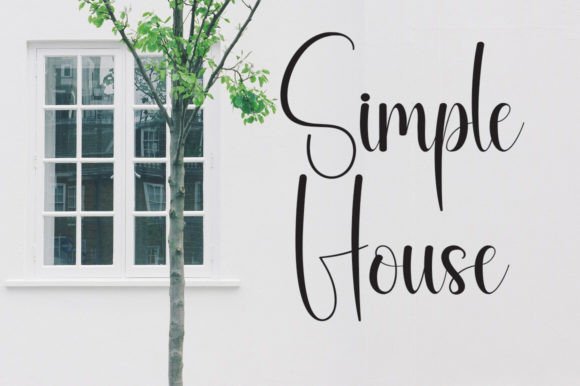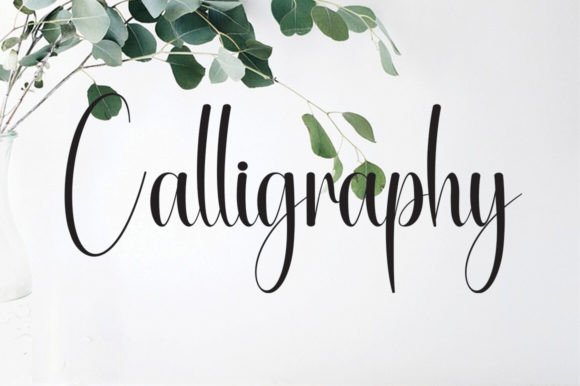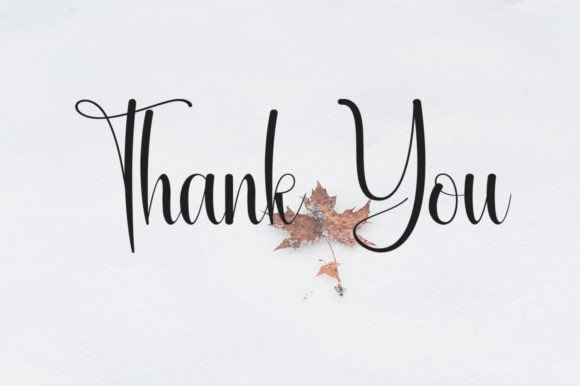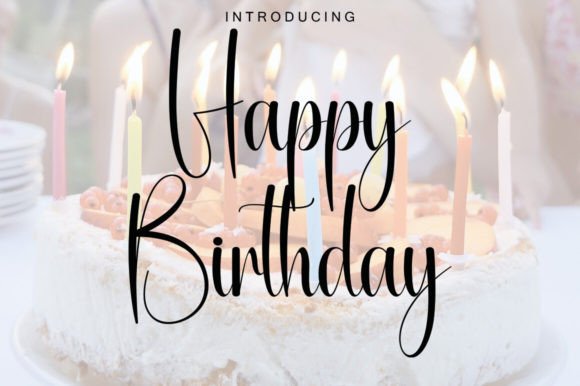
Introducing Happy Birthday Font: The Ultimate Celebration Companion for Designers and Crafters
Are you on the lookout for a font that can add a dash of joy, romance, and whimsy to your design projects? Look no further than Happy Birthday, a delightfully cursive handwritten font that is sure to make your creations stand out. Crafted with a gentle stroke, this enchanting font effortlessly exudes charm and elegance, making it the perfect choice for a wide range of design concepts.
The Charm of Happy Birthday Font
Happy Birthday Font is a warm and inviting cursive script that beautifully imparts a sweetness in every character. Its unique blend of elegance and fun makes it an ideal choice for designers and crafters who want to add a personal touch to their projects. Whether you’re creating birthday cards, party invitations, or social media graphics, Happy Birthday Font is sure to bring a smile to your audience’s faces.
Key Features of Happy Birthday Font
- Whimsical and Cursive Design: Happy Birthday Font boasts a delightful cursive handwritten design that is both playful and elegant.
- Gentle Stroke: The font’s gentle stroke gives it a soft and inviting appearance that is perfect for creating visually stunning projects.
- Warm and Inviting: The warm cursive style of Happy Birthday Font makes it an ideal choice for designs that require a personal touch.
- Visually Stunning: The font’s unique blend of elegance and fun makes it perfect for creating captivating projects that grab attention.
Happy Birthday Font is a versatile font that can be used for a wide range of design projects, including:
- Birthday Cards and Invitations: Add a personal touch to your birthday cards and invitations with Happy Birthday Font.
- Party Decorations: Use Happy Birthday Font to create eye-catching party decorations, such as banners and garlands.
- Social Media Graphics: Add a dash of joy and whimsy to your social media graphics with Happy Birthday Font.
- Wedding and Event Stationery: Use Happy Birthday Font to create beautiful wedding and event stationery, such as wedding invitations and place cards.
Why Choose Happy Birthday Font?
There are many reasons why Happy Birthday Font is the perfect choice for designers and crafters. Here are just a few:
- Unique and Eye-Catching: Happy Birthday Font is a unique and eye-catching font that is sure to make your designs stand out.
- Easy to Read: The font’s clear and gentle design makes it easy to read, even at small sizes.
- Versatile: Happy Birthday Font can be used for a wide range of design projects, from birthday cards to social media graphics.
- Fun and Whimsical: The font’s playful and whimsical design makes it perfect for designs that require a personal touch.
In conclusion, Happy Birthday Font is a delightful cursive handwritten font that is sure to add a dash of joy and romance to your design projects. With its unique blend of elegance and fun, it’s the perfect choice for designers and crafters who want to create visually stunning and captivating projects. So why wait? Download Happy Birthday Font today and start celebrating the joy of design!
Whether you’re a seasoned designer or a crafty DIY enthusiast, Happy Birthday Font is sure to become a favorite in your font collection. Its versatility, charm, and whimsy make it the perfect choice for a wide range of design projects. So go ahead, get creative, and let Happy Birthday Font add a touch of happiness to your designs!